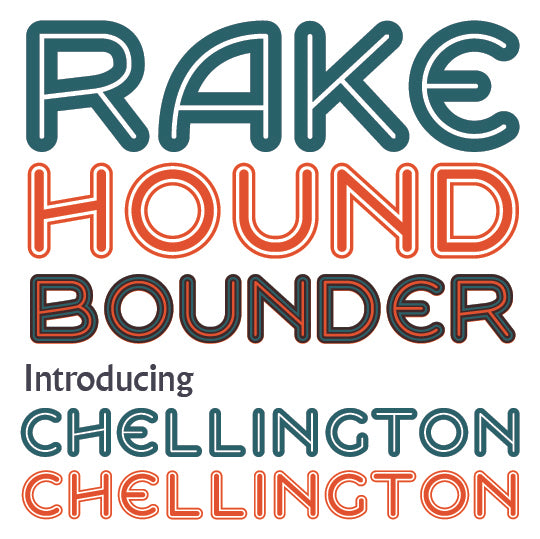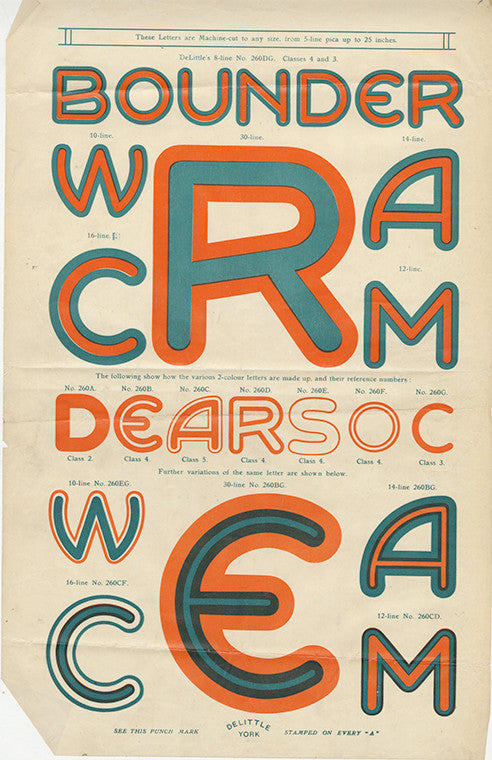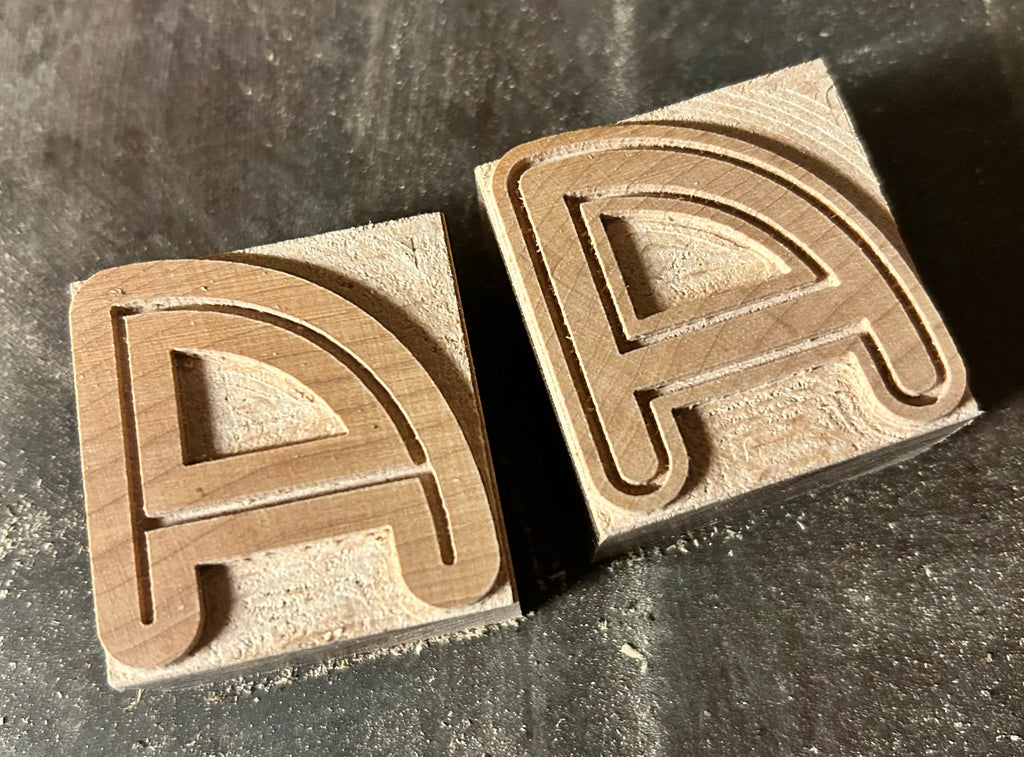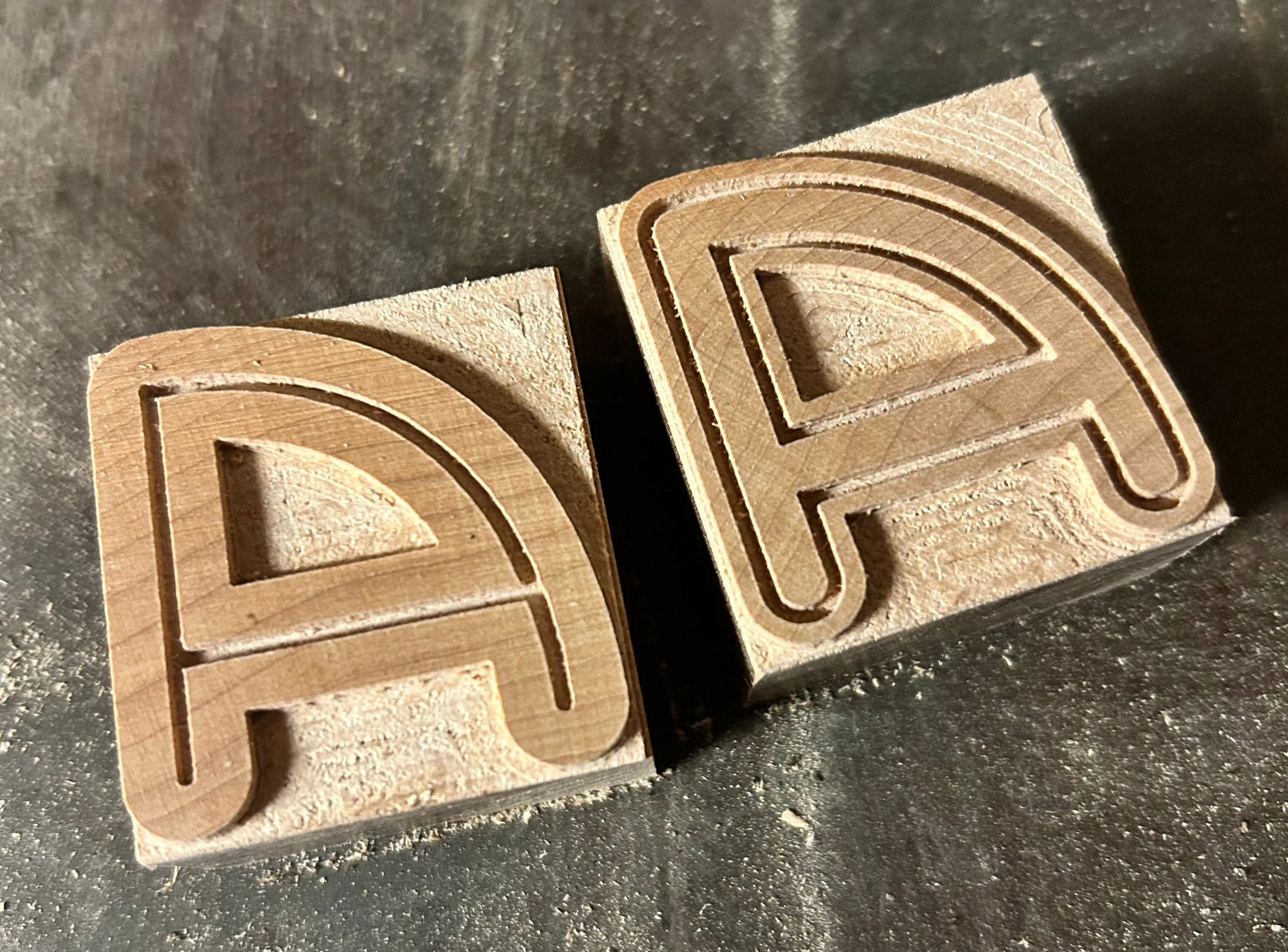
‘Chellington' Letterpress woodtype typeface
Introducing 'Chellington Chromatic' - a revival of Delittle No. 260 from 1925.
Using the 1925 Delittle Type Specimen and Dan X Solo's 'Flowline Open' (a redrawing of the later 1960s Delittle version) for reference for the missing letters, I've recreated the original 1925 woodtype typeface.
'Chellington Chromatic' is made up of 'Chellington Inline' (shown in green) and 'Chellington Outline' (shown in orange), you can purchase either set individually, however used together you can create some beautiful chromatic effects (two colours creating a third colour).
9 line (38.1mm) version cut from end grain English hardwood using a combination of modern CNC technology and traditional hand woodworking tools (including an original printers saw), made to English type-high (0.918in or 23.3mm) within plus or minus 0.1mm tolerance, sealed with shellac and hand finished with a traditional polished printing surface.